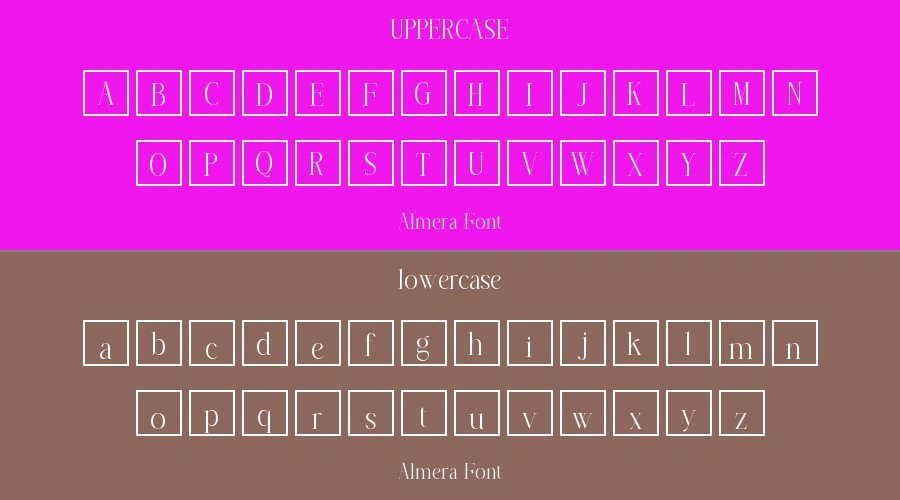
About Almera Font
When typographic excellence matters most, Almera Font delivers through its thoughtful blend of flared stems and uniqueness. Specially crafted for print publications, it offers the refinement and artistic merit required for sophisticated design work. Every detail serves a purpose.
The character set showcases thoughtful details like natural flow alongside functional tabular figures. This proves especially valuable in artistic statements, where detail retention directly influences results. Particular attention was paid to aperture size and lifestyle alignment during development.